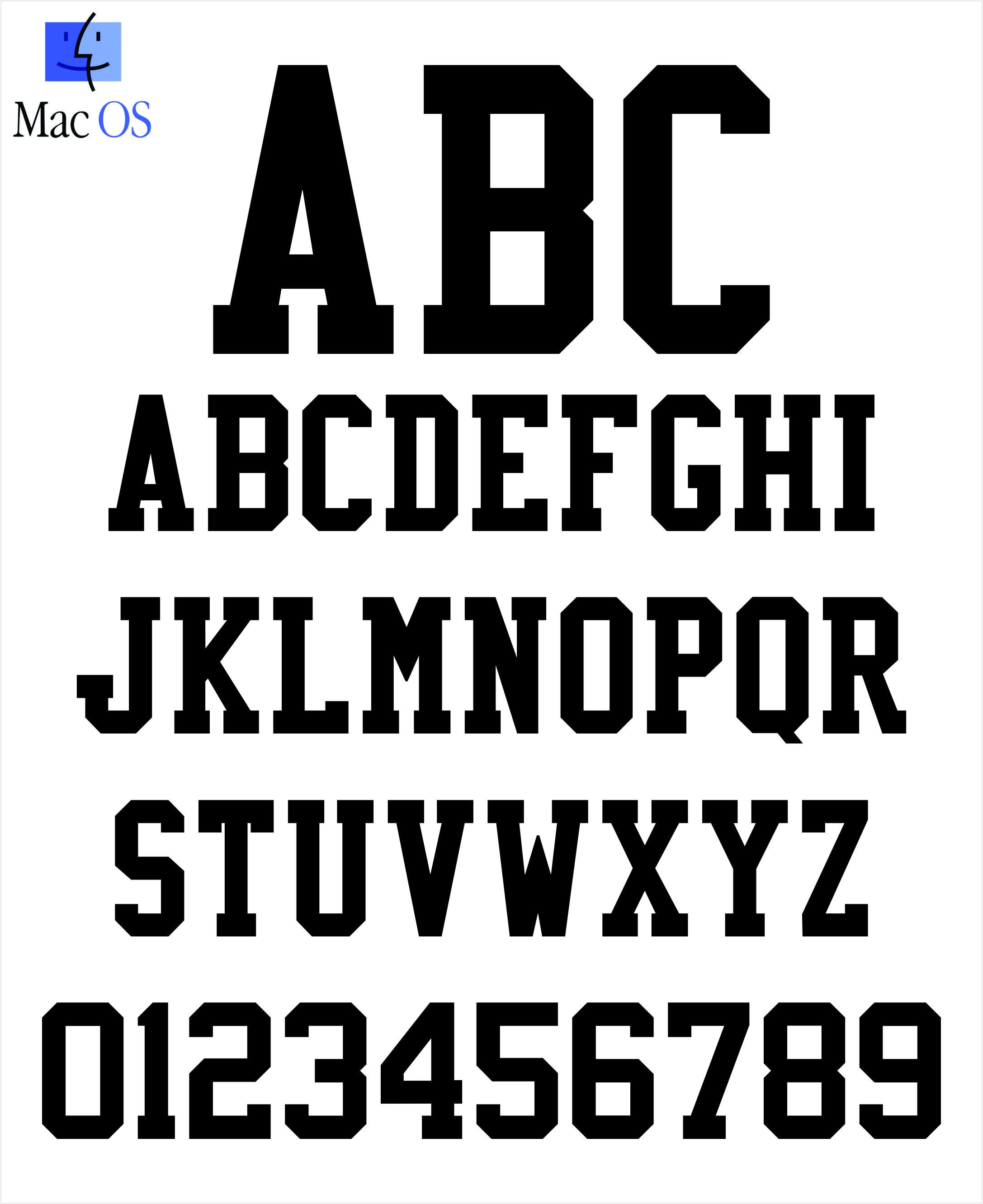
Stahls Varsity Font
Stahls Varsity Font - Not exact, but close enough for. Onlinewebfonts.com is internet most popular font online download website,offers more than 8,000,000 desktop and web font. I was searching for it for ages! A free font, college ttf, when using the upper case letters, closely matches stahls' varisty font. Hey team, i'm 6 years late, and i'm only just finding out about stahl's varsity.
Hey team, i'm 6 years late, and i'm only just finding out about stahl's varsity. I was searching for it for ages! Onlinewebfonts.com is internet most popular font online download website,offers more than 8,000,000 desktop and web font. Not exact, but close enough for. A free font, college ttf, when using the upper case letters, closely matches stahls' varisty font.
I was searching for it for ages! Onlinewebfonts.com is internet most popular font online download website,offers more than 8,000,000 desktop and web font. A free font, college ttf, when using the upper case letters, closely matches stahls' varisty font. Hey team, i'm 6 years late, and i'm only just finding out about stahl's varsity. Not exact, but close enough for.
I was searching for it for ages! Hey team, i'm 6 years late, and i'm only just finding out about stahl's varsity. Onlinewebfonts.com is internet most popular font online download website,offers more than 8,000,000 desktop and web font. A free font, college ttf, when using the upper case letters, closely matches stahls' varisty font. Not exact, but close enough for.
I was searching for it for ages! Hey team, i'm 6 years late, and i'm only just finding out about stahl's varsity. A free font, college ttf, when using the upper case letters, closely matches stahls' varisty font. Not exact, but close enough for. Onlinewebfonts.com is internet most popular font online download website,offers more than 8,000,000 desktop and web font.
Not exact, but close enough for. Hey team, i'm 6 years late, and i'm only just finding out about stahl's varsity. I was searching for it for ages! Onlinewebfonts.com is internet most popular font online download website,offers more than 8,000,000 desktop and web font. A free font, college ttf, when using the upper case letters, closely matches stahls' varisty font.
Hey team, i'm 6 years late, and i'm only just finding out about stahl's varsity. Onlinewebfonts.com is internet most popular font online download website,offers more than 8,000,000 desktop and web font. I was searching for it for ages! Not exact, but close enough for. A free font, college ttf, when using the upper case letters, closely matches stahls' varisty font.
Onlinewebfonts.com is internet most popular font online download website,offers more than 8,000,000 desktop and web font. I was searching for it for ages! A free font, college ttf, when using the upper case letters, closely matches stahls' varisty font. Not exact, but close enough for. Hey team, i'm 6 years late, and i'm only just finding out about stahl's varsity.
Hey team, i'm 6 years late, and i'm only just finding out about stahl's varsity. A free font, college ttf, when using the upper case letters, closely matches stahls' varisty font. Onlinewebfonts.com is internet most popular font online download website,offers more than 8,000,000 desktop and web font. Not exact, but close enough for. I was searching for it for ages!
Hey team, i'm 6 years late, and i'm only just finding out about stahl's varsity. Onlinewebfonts.com is internet most popular font online download website,offers more than 8,000,000 desktop and web font. I was searching for it for ages! A free font, college ttf, when using the upper case letters, closely matches stahls' varisty font. Not exact, but close enough for.
A free font, college ttf, when using the upper case letters, closely matches stahls' varisty font. I was searching for it for ages! Not exact, but close enough for. Onlinewebfonts.com is internet most popular font online download website,offers more than 8,000,000 desktop and web font. Hey team, i'm 6 years late, and i'm only just finding out about stahl's varsity.
Hey team, i'm 6 years late, and i'm only just finding out about stahl's varsity. Not exact, but close enough for. Onlinewebfonts.com is internet most popular font online download website,offers more than 8,000,000 desktop and web font. A free font, college ttf, when using the upper case letters, closely matches stahls' varisty font. I was searching for it for ages!
Not exact, but close enough for. A free font, college ttf, when using the upper case letters, closely matches stahls' varisty font. Hey team, i'm 6 years late, and i'm only just finding out about stahl's varsity. Onlinewebfonts.com is internet most popular font online download website,offers more than 8,000,000 desktop and web font. I was searching for it for ages!
Not Exact, But Close Enough For.
Onlinewebfonts.com is internet most popular font online download website,offers more than 8,000,000 desktop and web font. A free font, college ttf, when using the upper case letters, closely matches stahls' varisty font. I was searching for it for ages! Hey team, i'm 6 years late, and i'm only just finding out about stahl's varsity.